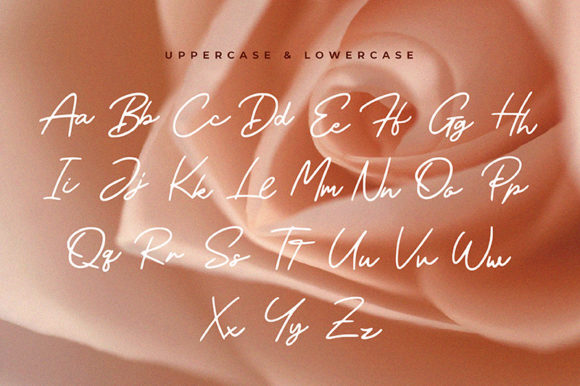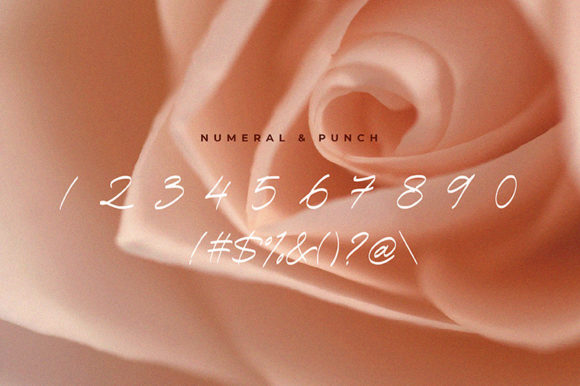
Meyried Font
About Meyried Font
Meyried is a delightful and charming cursive handwritten font that exudes sweetness and elegance. With its gentle and flowing letterforms, Meyried is a perfect choice for a wide range of design ideas, infusing each project with a touch of joy and romance.
The font’s cursive style lends a sense of fluidity and grace to your typography, making it ideal for projects that seek to convey a sense of warmth, friendliness, and intimacy. Meyried’s gentle curves and soft strokes create a harmonious and inviting visual experience, making it well-suited for various design applications.
Its sweet and romantic aura makes Meyried particularly fitting for projects centered around love, relationships, special occasions, and celebrations. Whether you’re designing wedding invitations, love letters, greeting cards, or any content that expresses affection and tenderness, Meyried adds a beautiful and heartfelt touch.
The font’s versatility allows it to complement both casual and sophisticated design themes. You can use Meyried in various contexts, from crafting logos, branding materials, and social media posts to creating stylish quotes, book covers, or decorative elements in stationery.
Furthermore, Meyried’s readability and legibility make it suitable for various text lengths, ensuring that your message comes across clearly and elegantly. The font’s gentle and expressive nature adds a touch of personality and emotion to your words, enhancing the overall impact of your designs.
Meyried also provides the freedom to experiment with various design elements, such as combining alternative glyphs and ligatures, to create unique and personalized typography. This adds a level of customizability and creativity to your projects, allowing you to tailor the font to suit your specific design vision.
Overall, Meyried is a sweet and cursive handwritten font that adds a delightful and romantic touch to your designs. Its gentle and expressive style infuses your projects with joy and warmth, making it a perfect choice for a wide array of design ideas. Embrace the sweetness of Meyried and let it bring a touch of romance to each of your creative endeavors!